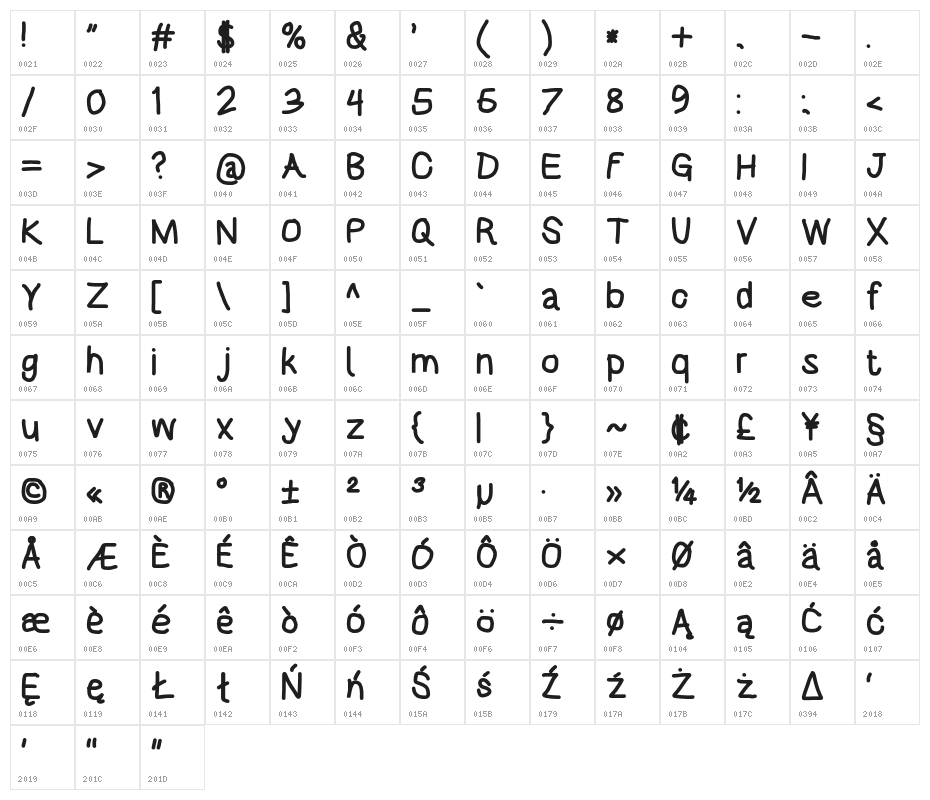
HoneyBee Black Font
HoneyBee Black Description
This font features a playful and bold handwritten style, characterized by its thick strokes and rounded edges. The letters have a casual and friendly appearance, making it suitable for informal and creative projects. The uppercase and lowercase letters maintain a consistent style, with a slight slant that adds to the dynamic feel. Numbers and special characters are designed with the same playful aesthetic, ensuring a cohesive look across all text elements. The overall design is approachable and lively, perfect for capturing attention in a fun and engaging way.
| Proposed Projects | Ideal for children's books, playful branding, greeting cards, and creative posters. |